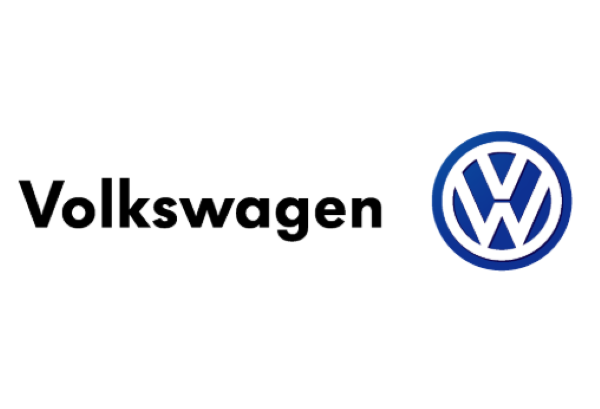
Volkswagen font — a Futura-derived bespoke modification designed by Erik Spiekermann and Luc de Groot from 1997 onward — is the typographic identity of a brand whose name translates literally as “people’s car” and whose corporate typography has always been trying to communicate exactly that: precision engineering that is not austere or intimidating, German quality that is not exclusive, a car for everyone that is nonetheless made with the care and seriousness of something made for no one but the most demanding. The geometric sans-serif base that Spiekermann and de Groot worked from — Futura, Paul Renner’s 1927 Bauhaus-adjacent masterpiece — communicates both the modernist precision of German engineering culture and the democratic accessibility that Volkswagen’s founding mandate requires. The freely available Volkswagen Font Alternative approaches this clean, precise, accessible geometric register.